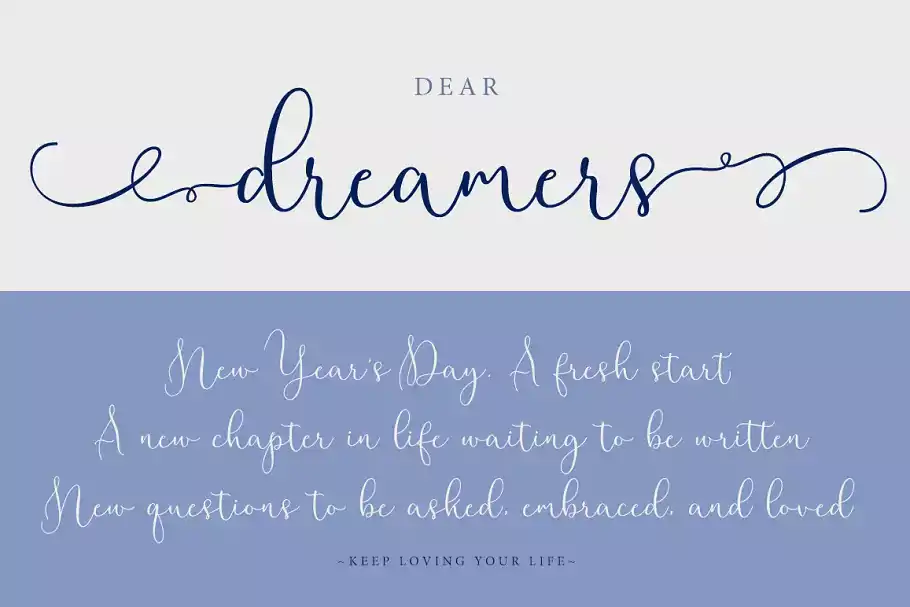
Rottarity Feminine Script Font
Rottarity Feminine is a linking script with an elegant and stylish feel. It’s thin, feminine, and welcoming, not to mention seductive. Rottarity Feminine is ideal for fashion, e-commerce, trend blogs, and any business that wishes to appear sophisticated and sophisticated. Lineto type created and uploaded the font. The font was first made available on January 8, 2017. Although several Rottarity Feminine Script Fonts are in the website clusters, this elegant font made a tremendous difference in building a brand new appealing layout.
This script and calligraphy typeface evolves on a regular basis, and various designers attempt to improve it. This is a Unicode typeface family that currently has eight styles. Light, Regular, Bold, Black, Light Italic, Bold Italic, and Black Italic are among the styles available. Along with all of the other characteristics, the typeface employed in Barbie’s symbol has its own special significance. It employs a cursive font, which entices many designers to seek it out. It’s possible that you’re one of them. It’s a calligraphy font that looks like bhatoshine.
Every authentic feature of a character is present in every individual persona. This statement is written in Rottarity Feminine Script Font. This toy has a unique look, as well as dress and trend. This font, together with its empty and bordered characters, is suitable for any one-of-a-kind creative project.